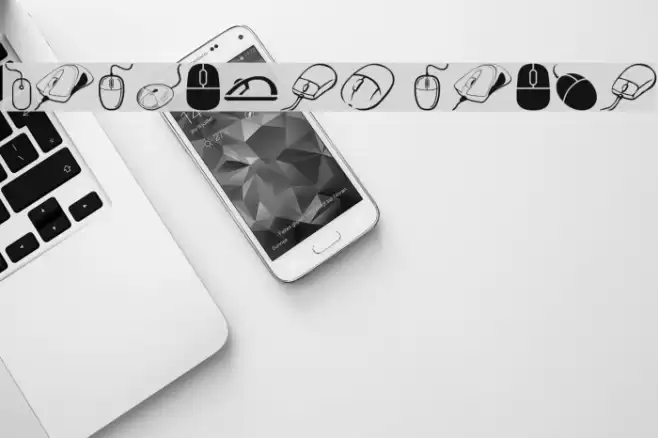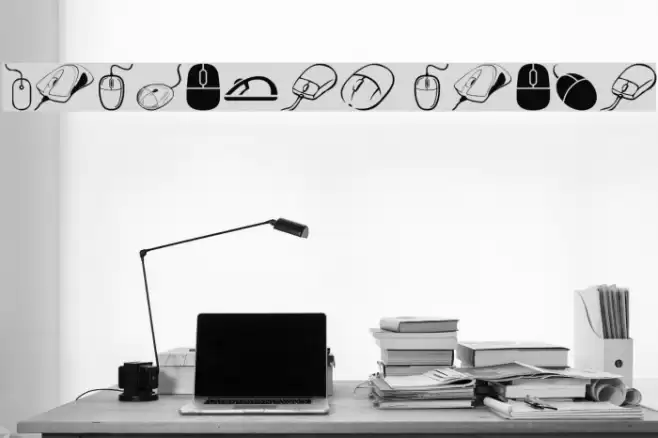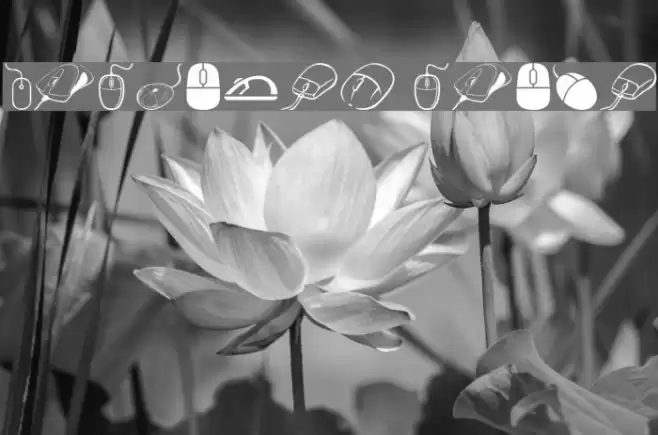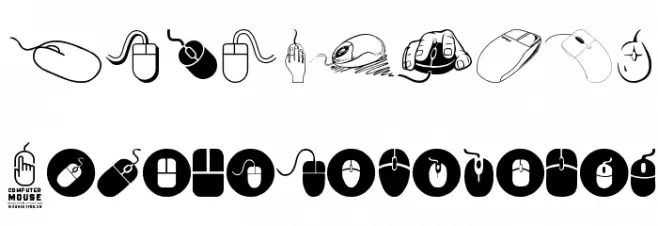
computer mouse Font
A decorative dingbat font composed entirely of various computer mouse icons and illustrations, featuring both solid and outlined styles, with a mix of simple geometric and more detailed hand-drawn representations.
A pictogram font of diverse computer mouse icons from Uncategorized fonts.
- Proposed Projects: Tech branding, UI/UX mockups, infographics, educational materials, digital design, icon sets.
- Overall Style: Decorative, Modern, Pictogram
- Use Case: Icons, Infographics, Themed graphics, UI elements